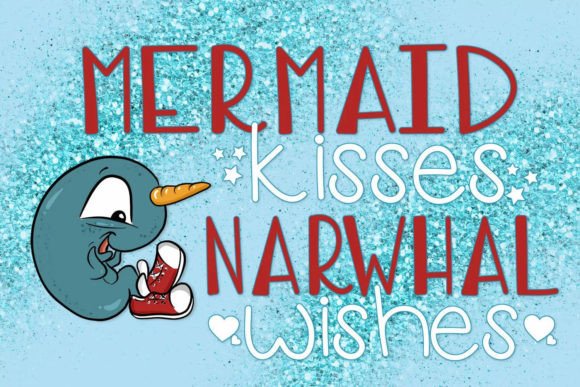
Introduction to Narwhal Shoes Font
Have you ever been working on a creative project, and you just can’t seem to find the right touch to make it pop? That’s where the Narwhal Shoes Font comes in – a fun, handwritten font that adds a little extra flair to your design. Whether you’re a seasoned designer or just starting out, this font is sure to bring a smile to your face and make your projects shine.
As a valuable design resource, Narwhal Shoes Font is perfect for adding a personal touch to your designs. With its unique, handwritten style, you can create custom titles, headings, and even entire paragraphs that are sure to stand out. Plus, with the included swashes and glyphs, you can add even more personality to your design. And the best part? It works great with cutting machines, making it a high-quality resource for any project.
Key Features of Narwhal Shoes Font
- High-quality font design perfect for creative projects, offering a unique and playful touch.
- Unique characteristics include whimsical illustrations and stylish letterforms, adding a touch of magic to any design project.
- Perfect for use in logos, branding materials, and other creative applications where a distinctive and eye-catching font is required.
Honest Review: Narwhal Shoes Font
I recently had the chance to work with the Narwhal Shoes Font for a creative project, and I was excited to see how it would perform. This font is a fantastic design resource that offers a unique, eye-catching aesthetic.
One of the standout features of the Narwhal Shoes Font is its high quality. The characters are crisp and clear, making it perfect for a variety of design applications, from print to digital. The font also includes a transparent background, which is a huge plus for designers who want to easily layer their fonts over images or other design elements.
- ✨ Unique and eye-catching aesthetic
- ✨ High-quality characters
- ✨ Versatile and suitable for a wide range of design applications
My only criticism is that the font may not be suitable for all design projects. The Narwhal Shoes Font has a distinctive, playful feel that may not be the best fit for more serious or formal designs. ⚠️ Be mindful of the tone you want to convey with your design.
Overall, I was impressed with the Narwhal Shoes Font and would recommend it to designers looking for a unique and high-quality font.
Narwhal Shoes Font
Narwhal Shoes Font is perfect for designing children’s books, party invitations, and social media graphics. It’s also great for creating eye-catching headlines and titles.